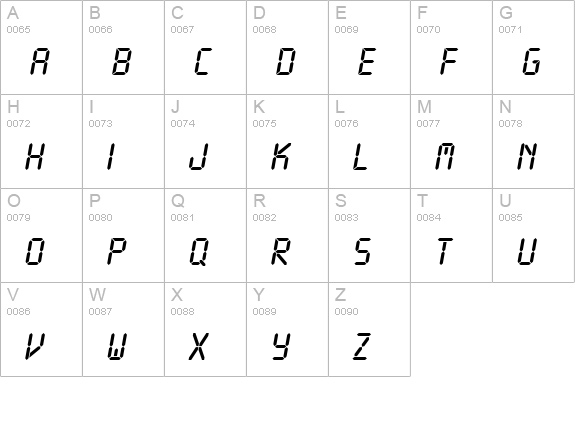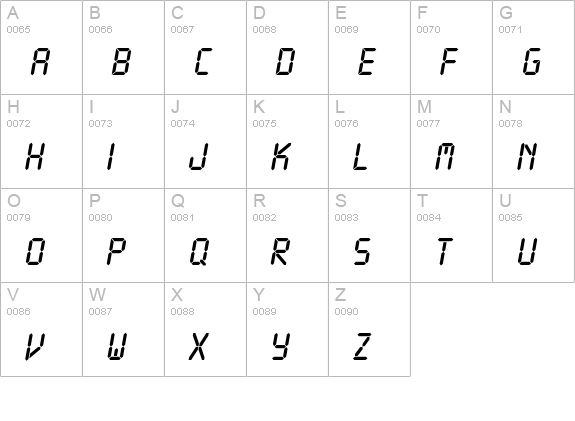
Introducing LCD Com font, a sleek and modern typeface perfect for adding a futuristic touch to your designs. This versatile font features sharp, clean lines and a digital aesthetic that makes it ideal for tech-related projects, gaming graphics, and more. With its bold and eye-catching appearance, LCD Com font is sure to make a statement and grab attention.